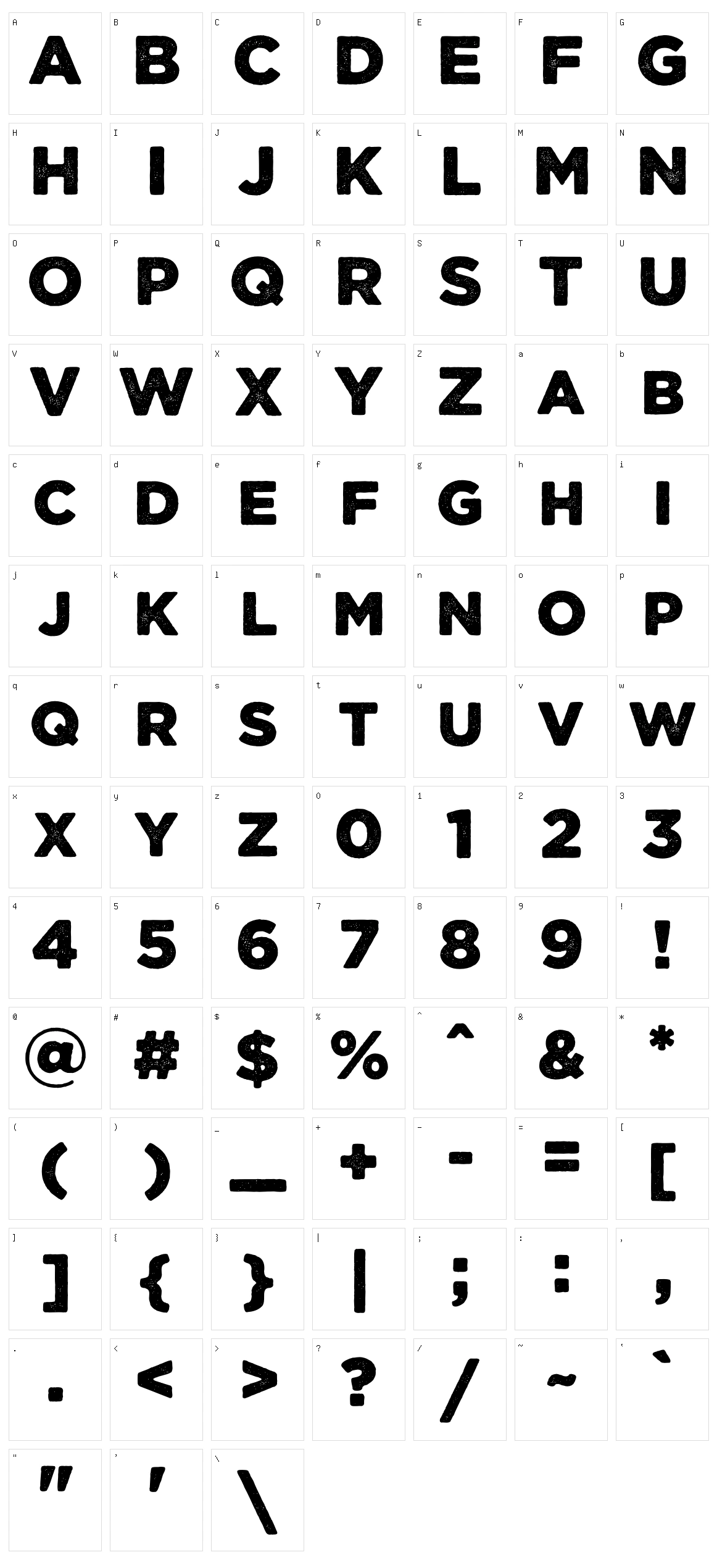
COURAGE ROAD
A Font by S. John Ross
This font is a new entry into one of my most popular forms, the stressed poster font. This one is extra bold, though, because it's about one person's courage, and a tribute to the line to their heart. This is the COURAGE ROAD.
COURAGE ROAD is a full US-Keyboard Small-Caps stressed poster font with some extras for additional European alphabets. Enjoy!